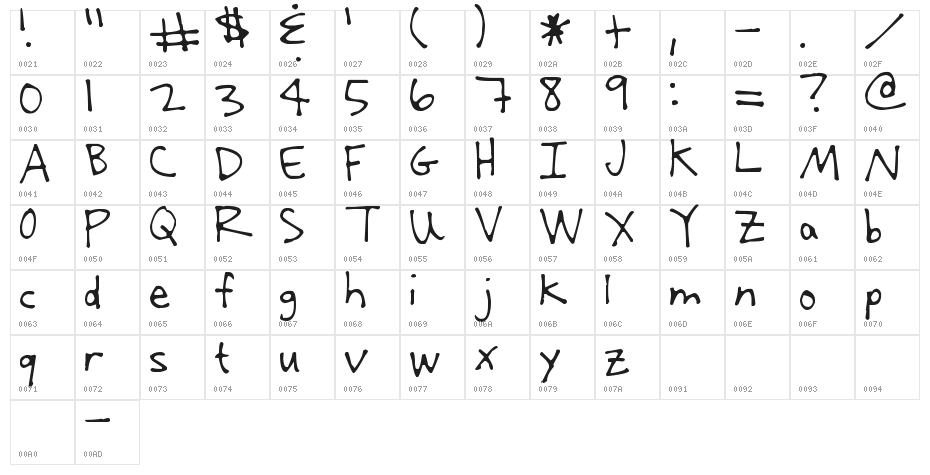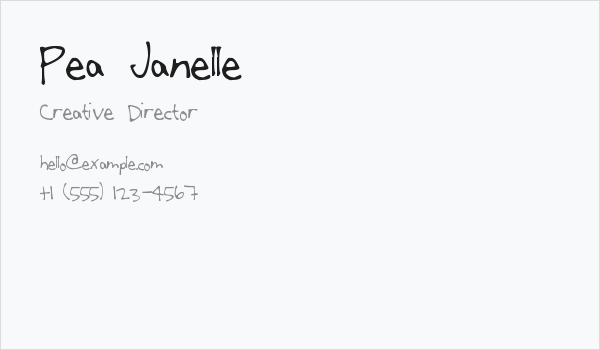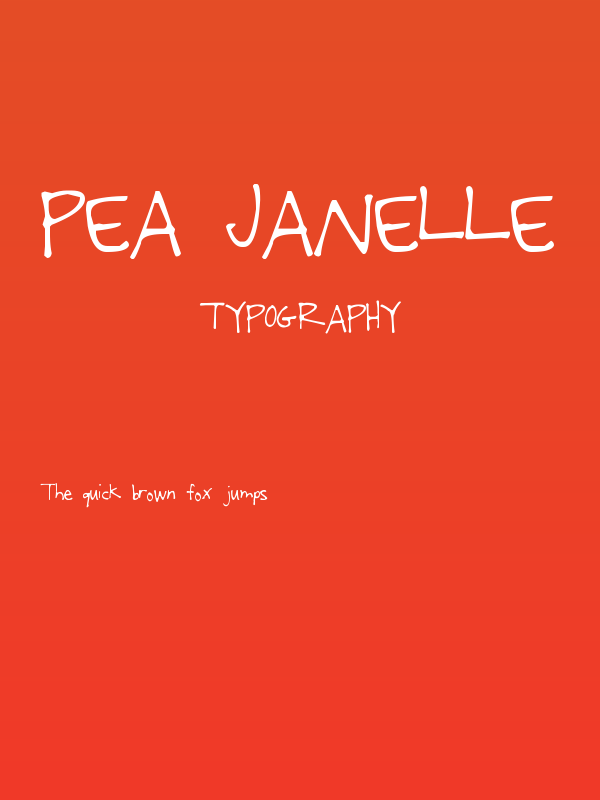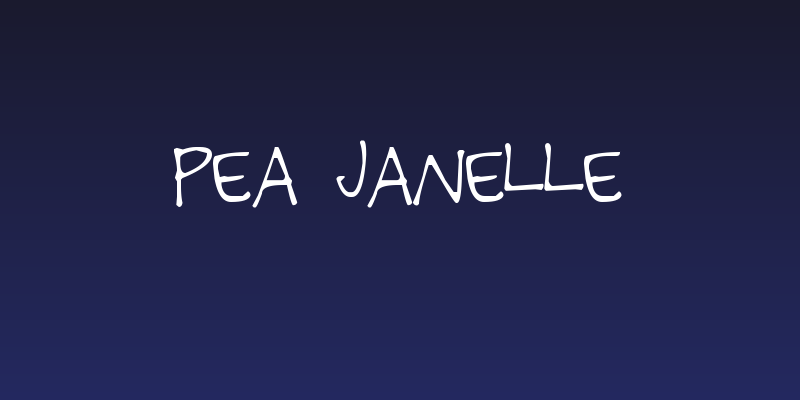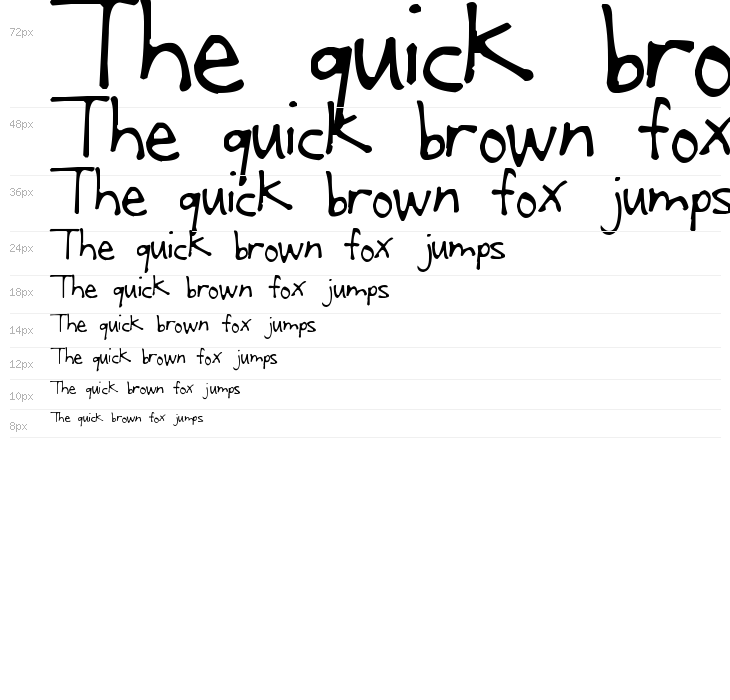
Pea Janelle Font
Pea Janelle Description
This font exudes a playful and informal vibe, characterized by its handwritten style that mimics casual penmanship. The letters are slightly irregular, with varying stroke thicknesses that add to its charm. The uppercase and lowercase letters maintain a consistent style, with rounded edges and a slight slant, giving it a relaxed and approachable feel. The numbers and special characters follow the same aesthetic, ensuring a cohesive look across all glyphs. This font is perfect for projects that require a personal touch, such as greeting cards, invitations, or any design that aims to convey warmth and friendliness.
| Use Case | Headlines, Informal text, Personal projects |
| Proposed Projects | Ideal for greeting cards, personal invitations, children's books, and playful branding. |